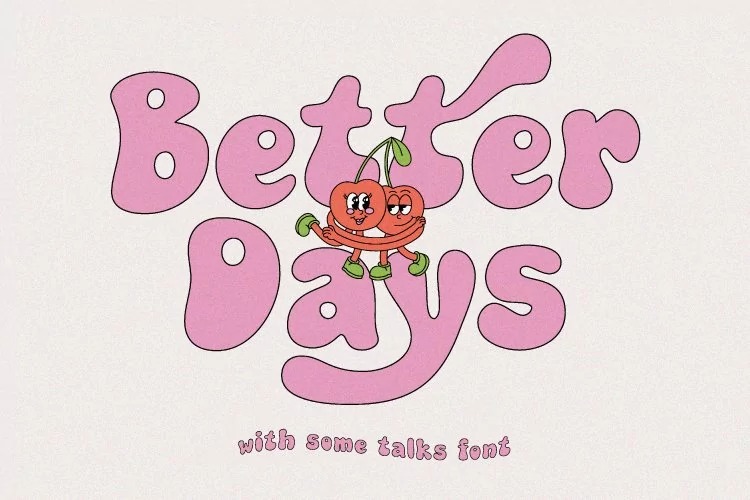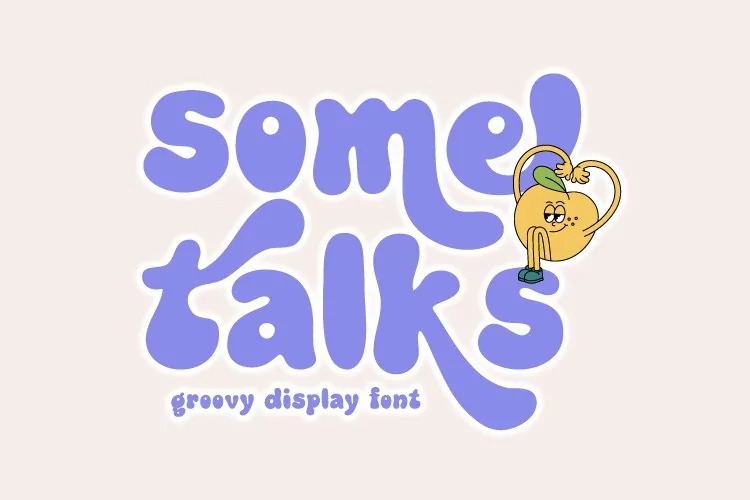
Some Talks Font
Some Talks Display Font is a unique liquid display typeface. Its casual charm makes it appear wonderful down-to-earth, readable, and versatile. Equipped with alternates and ligatures to enrich your exploration. Suitable for branding design, logo, merchandise etc.